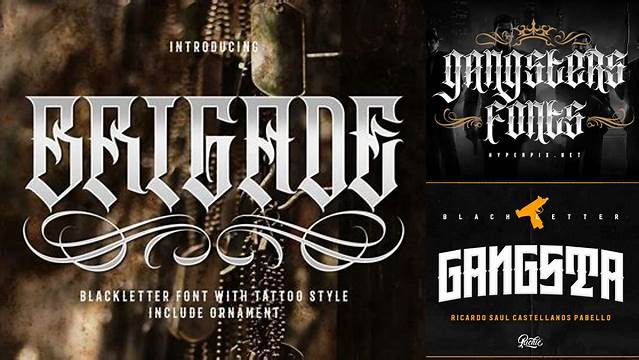
Gangsta Font: Free Downloads To Unleash Your Style
Hey guys! Are you looking to add some serious edge to your designs? Do you want your text to scream attitude and street credibility? Well, you've come to the right place! We're diving deep into the world of gangsta fonts, those bold, in-your-face typefaces that can instantly transform any project into a gritty masterpiece. In this article, we'll explore what makes a font "gangsta," where to find the best gangsta fonts for free, and how to use them effectively in your projects. So buckle up, because we're about to take a ride through the urban jungle of typography!
What Makes a Font "Gangsta?"
Before we start downloading, let's define what exactly we mean by a “gangsta font.” It's not just about looking cool; it's about conveying a specific vibe, a certain sense of rebellion and toughness. Gangsta fonts often draw inspiration from graffiti, old-school tattoo lettering, and even vintage signage found in urban environments. They tend to be bold, display-oriented fonts, meaning they're best suited for headlines, titles, and other large-format text. Think album covers, movie posters, and edgy streetwear designs. A true gangsta font commands attention and makes a statement. They are not the fonts you'd use for body text in a novel, but rather for short, impactful messages that need to grab the viewer. Key characteristics of a gangsta font often include sharp angles, thick strokes, and an overall sense of power. Many mimic the look of hand-drawn graffiti, with rough edges and a raw, untamed feel. Others might have a more classic, vintage vibe, reminiscent of old gangster films and prohibition-era signage. But no matter the specific style, all gangsta fonts share a common goal: to exude confidence and attitude. They often incorporate stylistic elements that suggest a certain level of danger or intrigue, like stylized drips, splatters, or even subtle bullet hole effects. The key is to find a font that accurately conveys the message you're trying to send and fits the overall aesthetic of your project. Remember, a gangsta font is not just a typeface; it's a visual statement. It’s a way to inject personality and character into your design, giving it that extra edge that makes it stand out from the crowd. When choosing a gangsta font, consider the historical context you're trying to evoke, the overall tone of your project, and the specific message you want to communicate. A well-chosen gangsta font can be the difference between a design that falls flat and one that truly captivates your audience.
Where to Find Free Gangsta Fonts
Top Free Gangsta Font Picks
Okay, guys, let's get specific! To help you kickstart your search, here are some of my top picks for free gangsta fonts that you can download and use right away. These fonts cover a range of styles, from gritty graffiti to vintage-inspired designs, so you're sure to find something that fits your project. First up, we have “Permanent Marker,” a bold and messy font that looks like it was scrawled on a brick wall with a Sharpie. This font is perfect for creating a raw and edgy look, ideal for posters, flyers, and social media graphics. It's got that authentic graffiti vibe that instantly screams gangsta. Next, check out “Bangers,” a distorted and aggressive font that's inspired by comic book lettering. This font is all about impact, with its thick strokes and sharp angles. It's perfect for headlines and titles that need to grab attention. If you're going for a more vintage gangsta look, “Fredericka the Great” is a fantastic option. This font has a classic, old-school feel, reminiscent of prohibition-era signage. It's elegant yet bold, making it a great choice for logos, branding, and even invitations. For a font that really captures the gritty urban aesthetic, look no further than “Urban Jungle.” This font is rough, textured, and full of character. It looks like it's been through a war, which makes it perfect for conveying a sense of toughness and resilience. If you want a font that's both stylish and edgy, “ নিবাস” is a great choice. This font has a unique, hand-drawn feel, with slightly irregular letterforms that add to its charm. It's perfect for creating a more subtle gangsta vibe, ideal for apparel designs and other creative projects. These are just a few examples, of course, but they should give you a good starting point for your search. Remember to experiment with different fonts and see what works best for your specific project. The most important thing is to choose a font that accurately reflects the message you're trying to convey and adds that extra touch of gangsta flair.
How to Use Gangsta Fonts Effectively
Now that you've got your gangsta font downloaded, let's talk about how to use it effectively. A powerful font like this can make a huge impact, but it's important to use it strategically to avoid overkill. First and foremost, remember that gangsta fonts are best suited for display purposes. They're not designed for body text, so stick to using them for headlines, titles, logos, and other short bursts of text. Trying to read a paragraph in a complex or stylized font can be tiring for the eyes, so keep it concise. When it comes to sizing, bigger is usually better with gangsta fonts. These fonts are meant to be seen, so don't be afraid to go big. Experiment with different sizes to find the sweet spot where your text really pops. Contrast is key when working with gangsta fonts. Because these fonts are so bold and attention-grabbing, you'll want to pair them with more simple and understated fonts for the rest of your design. A classic sans-serif or serif font can provide a nice counterpoint to the edgy style of a gangsta font. Consider the color palette you're using in your design. Gangsta fonts often look great in high-contrast color schemes, such as black and white or bold colors like red and yellow. Think about the overall aesthetic you're trying to achieve and choose colors that complement the font's style. Don't be afraid to experiment with different effects to enhance your gangsta font. Adding a drop shadow, outline, or even a subtle texture can really make your text stand out. Just be careful not to overdo it – you want to add to the font's impact, not distract from it. Think about the context in which your font will be used. A gangsta font might be perfect for a movie poster or an album cover, but it might not be the best choice for a corporate presentation. Consider your audience and the overall tone of your project when selecting a font. Ultimately, the key to using gangsta fonts effectively is to use them with intention. Think about the message you're trying to send and how the font can help you convey that message. When used thoughtfully, a gangsta font can be a powerful tool for creating impactful and memorable designs.
Unleash Your Creativity with Gangsta Fonts
So there you have it, guys! Everything you need to know to find and use gangsta fonts in your projects. With the right font, you can add a serious dose of attitude and style to your designs, making them stand out from the crowd. Remember to explore the various resources we've discussed, experiment with different styles, and most importantly, have fun! Gangsta fonts are all about expressing yourself and making a statement, so don't be afraid to get creative. Whether you're designing a logo, a poster, or a website, a gangsta font can be the perfect way to add that extra edge. So go ahead, unleash your inner thug, and let your fonts do the talking!